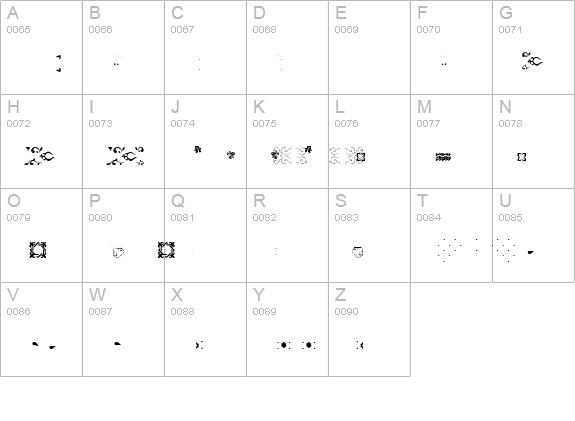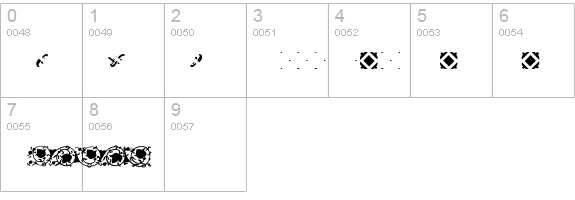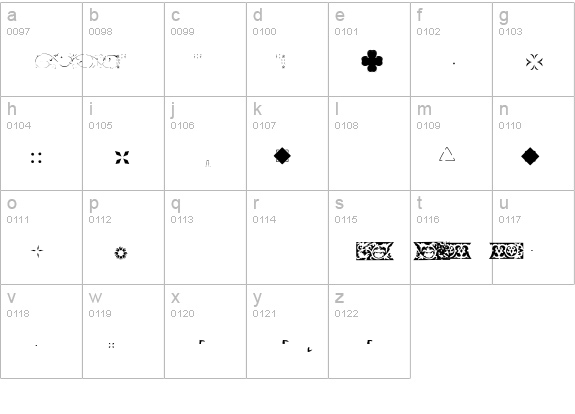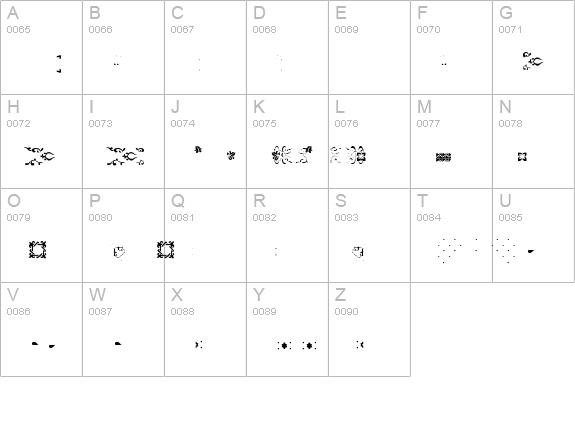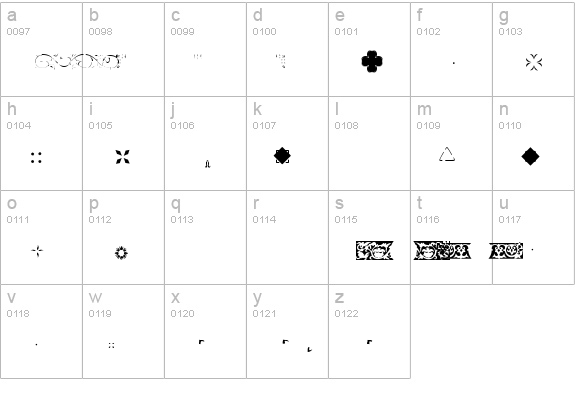
PFOrnmTreasures2-Layer4 font is a stunning display typeface that exudes elegance and sophistication. Featuring intricate ornamental designs, this font is perfect for adding a touch of luxury to your projects. The detailed layers create a beautiful 3D effect that will make your text stand out. Best of all, PFOrnmTreasures2-Layer4 font is available for free download at FontsMarket.com. Whether you're working on a branding project, invitations, or any other design, this font will elevate your work to the next level. Don't miss out on the opportunity to enhance your designs with this exquisite font. Download it now and add a touch of glamour to your creations.